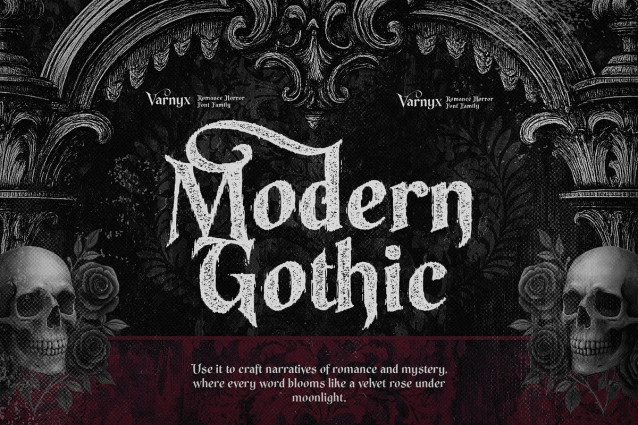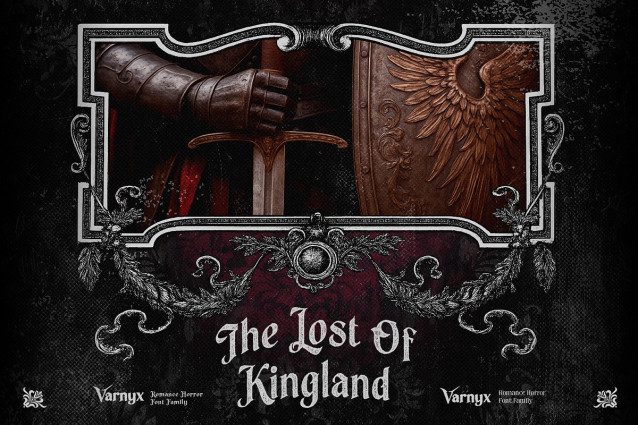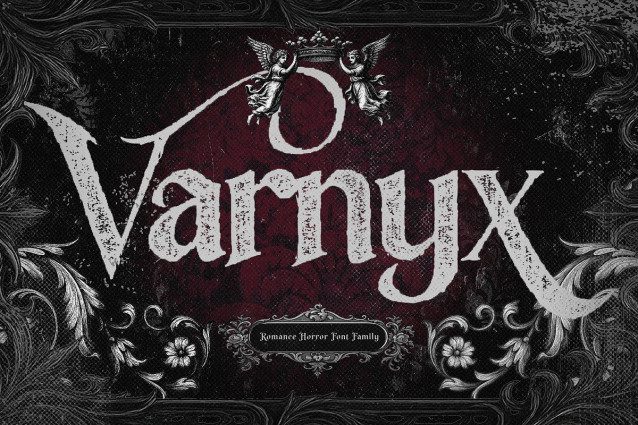
Varnyx Font
Varnyx Font is a hauntingly beautiful romance horror font family that blends gothic elegance with eerie drama. With 4 unique styles ranging from clean to raw textured, Varnyx is designed for projects that seek to balance the macabre with the poetic. Whether you’re crafting a gothic fairytale, designing a darkwave album, or building branding for a mystic product—Varnyx delivers intensity and sophistication in every glyph.